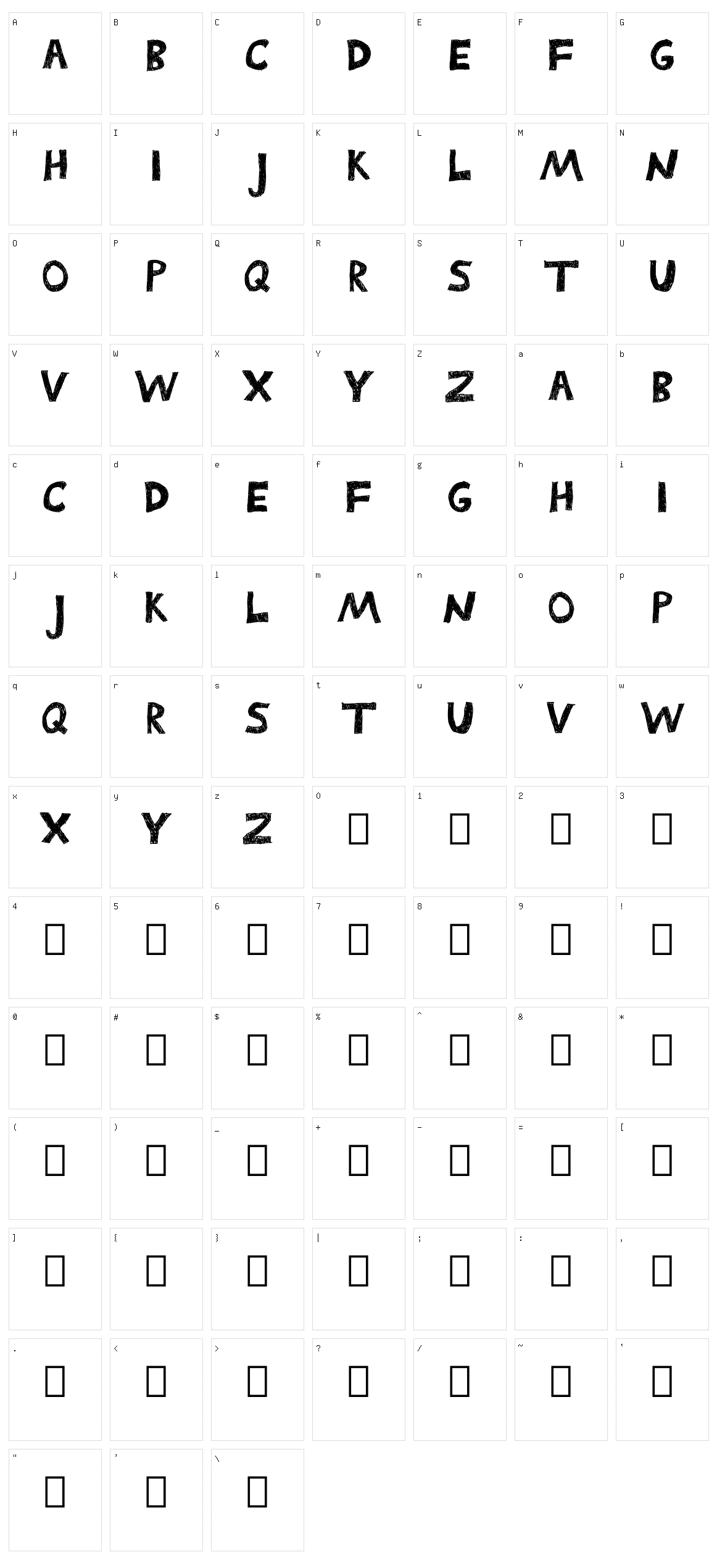
The free font Childhood is carefully designed by Flo Crusher, showcasing a thoughtful balance of creativity and usability and falls under the Cartoon font style. When you download the ZIP file, it contains only 109.11 KB of font files, making it lightweight and quick to download. Please review the license details below to understand permitted usage and distribution rights. If license information is not available, we recommend using this font for personal projects only or contacting the author directly for commercial usage permissions.